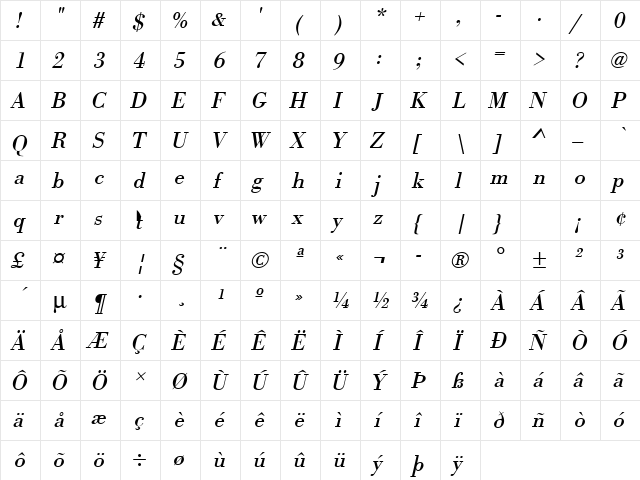
URWBodoniT Oblique
Design Context for URWBodoniT Typeface
URWBodoniT offers clean, dependable letterforms without strong stylistic allegiance, making it a practical choice for designers who need flexibility. The dynamic lean of this cut emphasises speed and emphasis in any layout.